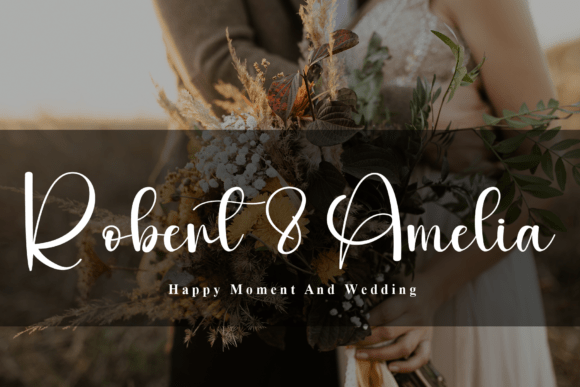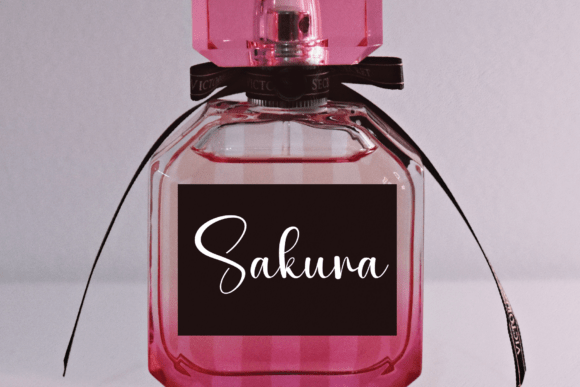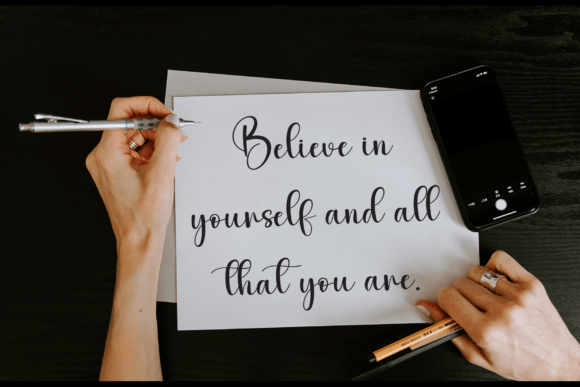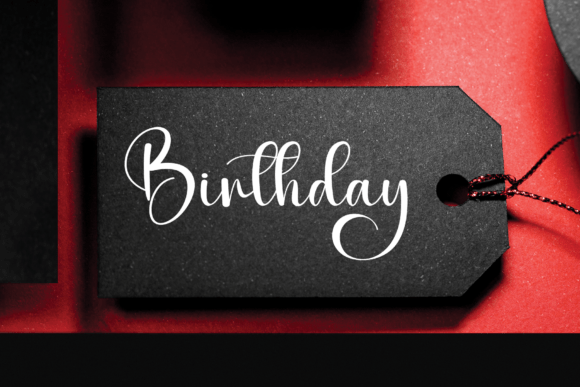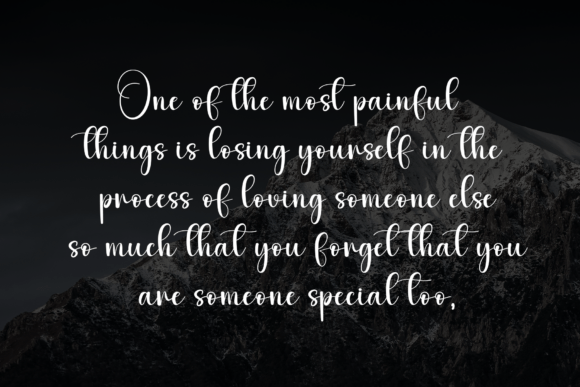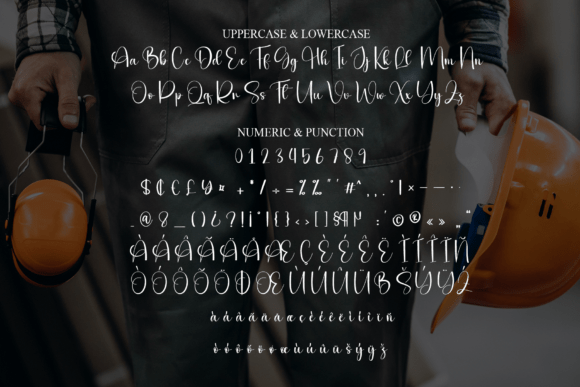
Unlocking Creativity with Black Safety Font: The Ultimate Guide
Are you tired of using the same old fonts for your creative projects? Look no further than the Black Safety Font, a script handwritten font designed to bring a personal and expressive touch to your designs. With its natural flow and smooth curves, this font is perfect for adding charm and character to any project. In this article, we’ll dive into the world of Black Safety Font and explore its features, benefits, and uses.
The Story Behind Black Safety Font
This script handwritten font was made to feel personal and expressive—just like your most creative ideas! The designers behind Black Safety Font aimed to create a font that would add a touch of warmth and personality to any design. With its unique blend of elegance and playfulness, this font is sure to make your projects stand out.
Key Features of Black Safety Font
- Natural Flow: Black Safety Font features a natural flow that’s reminiscent of handwritten text. Its smooth curves and fluid lines make it perfect for creating elegant and sophisticated designs.
- Perfectly Legible: Despite its creative and artistic feel, Black Safety Font is perfectly legible, making it suitable for use in body text, titles, and decorative elements.
- Full of Personality: This font is full of character and charm, making it perfect for designers and crafters who want to add a personal touch to their projects.
Uses for Black Safety Font
Black Safety Font is incredibly versatile and can be used for a wide range of projects, including:
- T-Shirts: Add a personal touch to your t-shirt designs with Black Safety Font. Its bold and playful feel makes it perfect for creating eye-catching designs.
- Magazine Covers: Create stunning magazine covers with Black Safety Font. Its elegant and sophisticated feel makes it perfect for use in editorial design.
- Wedding Invitations: Make your wedding invitations truly special with Black Safety Font. Its romantic and whimsical feel makes it perfect for creating beautiful and memorable invitations.
- Branding: Use Black Safety Font to create a unique and memorable brand identity. Its creative and artistic feel makes it perfect for use in logos, business cards, and other branding materials.
- Social Media Graphics: Add a personal touch to your social media graphics with Black Safety Font. Its bold and playful feel makes it perfect for creating eye-catching graphics.
- Greeting Cards: Create beautiful and memorable greeting cards with Black Safety Font. Its elegant and sophisticated feel makes it perfect for use in card design.
Tips for Using Black Safety Font
Here are a few tips for getting the most out of Black Safety Font:
- Experiment with Different Sizes: Black Safety Font looks great in a variety of sizes, from large titles to smaller body text. Experiment with different sizes to find the one that works best for your project.
- Pair with Other Fonts: Black Safety Font pairs well with a variety of other fonts, including sans-serif and serif fonts. Experiment with different pairings to find the one that works best for your project.
- Use for Emphasis: Use Black Safety Font to add emphasis to certain words or phrases in your design. Its bold and playful feel makes it perfect for creating eye-catching text.
Black Safety Font is a versatile and creative font that’s perfect for designers and crafters who want to add a personal touch to their projects. With its natural flow, smooth curves, and perfectly legible design, this font is sure to become a favorite in your design arsenal. Whether you’re working on a t-shirt design, magazine cover, wedding invitation, or social media graphic, Black Safety Font is the perfect choice.